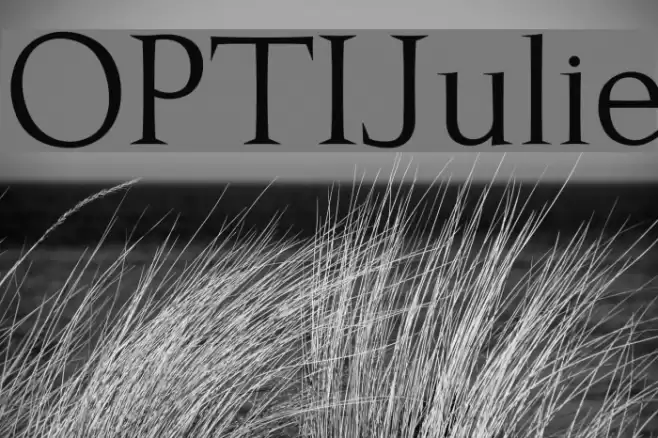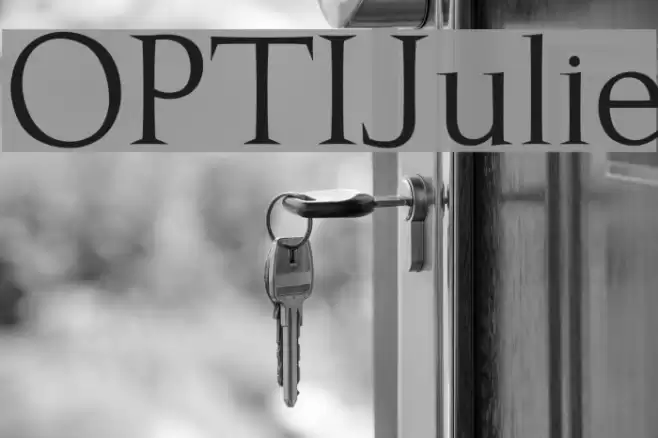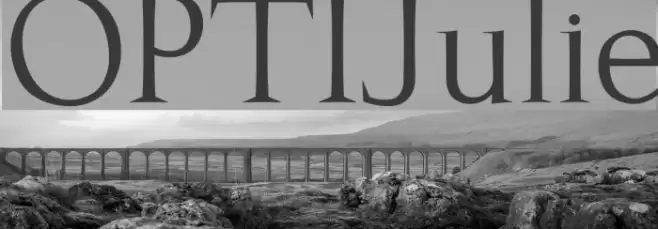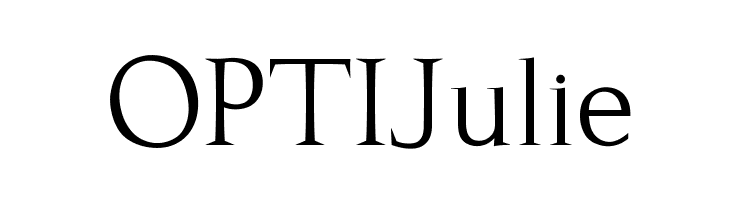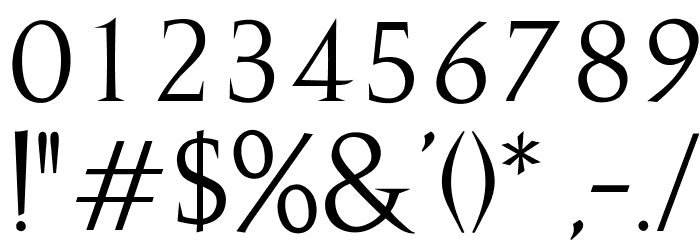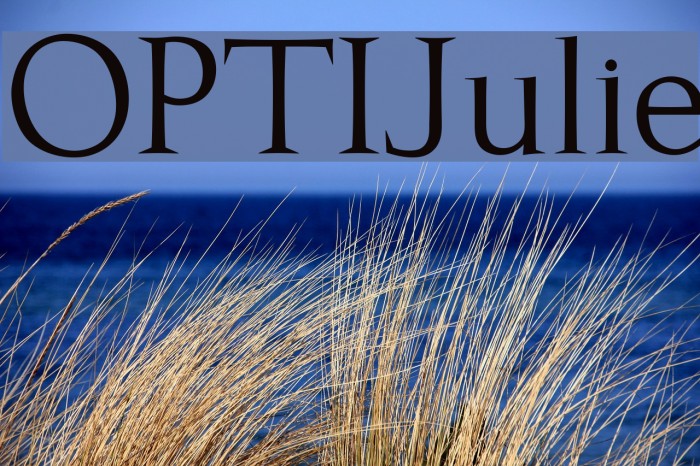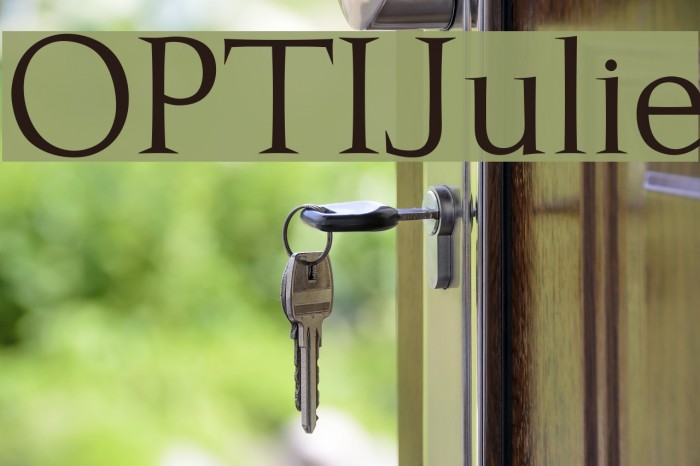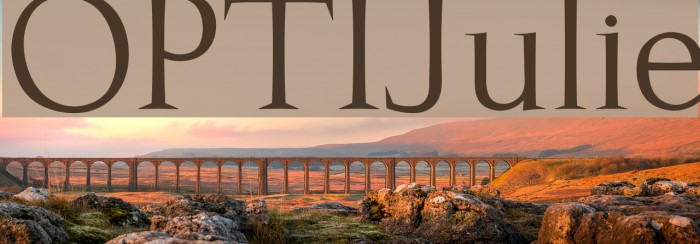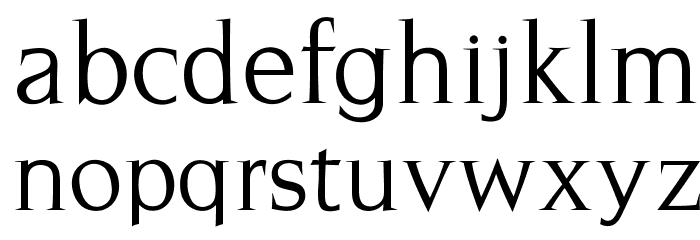
OPTIJulie Font
OPTIJulie Description
This font exhibits a classic serif style with elegant, thin lines and subtle curves. The uppercase letters are tall and stately, with a slight flair at the ends of strokes, giving them a refined appearance. The lowercase letters maintain a consistent height, with rounded forms that enhance readability. Numerals are proportionate and blend seamlessly with the alphabet, while special characters are distinct and well-formed. The overall design is sophisticated, making it suitable for formal and professional applications.
A classic serif font with elegant lines and refined curves from Uncategorized fonts.
- Proposed Projects: Ideal for book covers, formal invitations, corporate branding, and editorial design.
- Overall Style: Classic